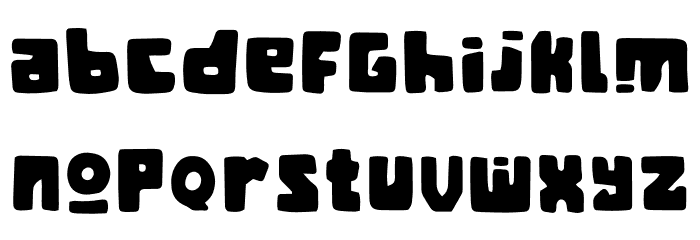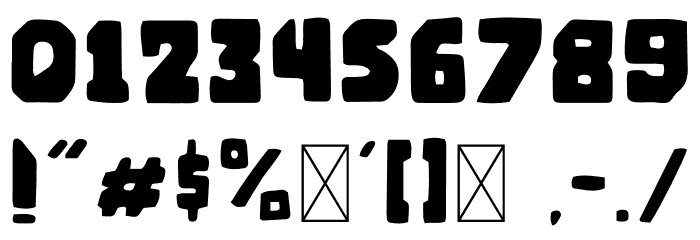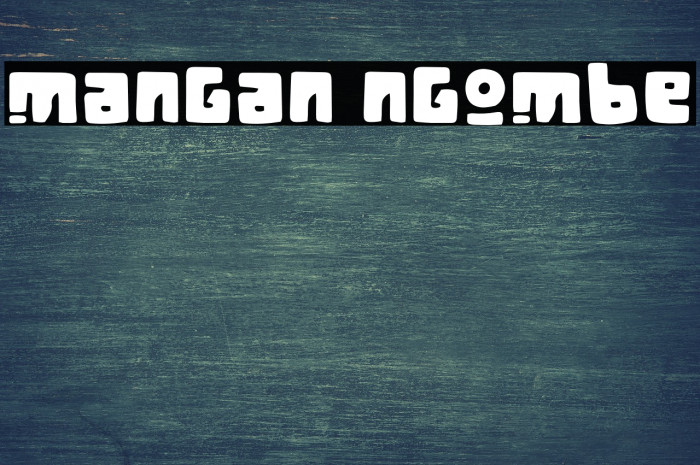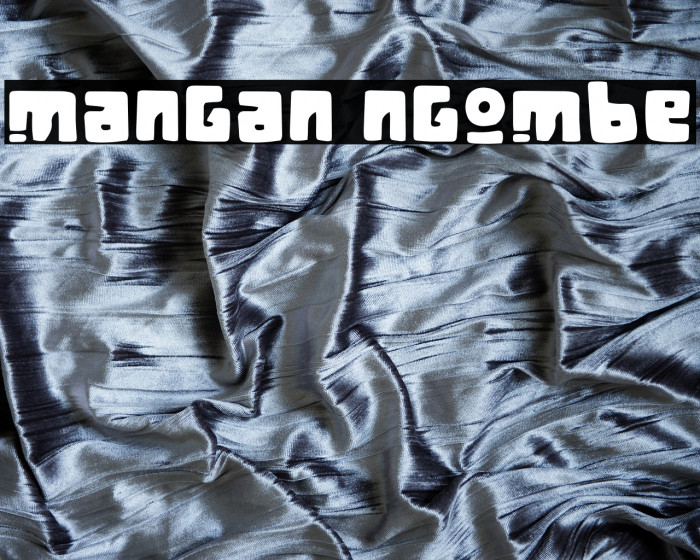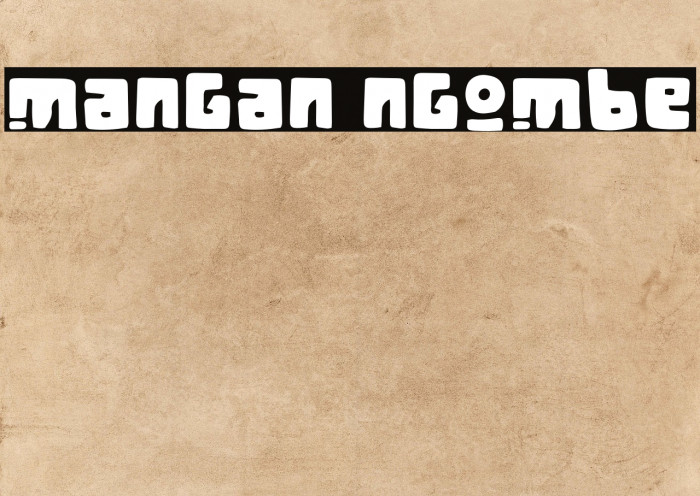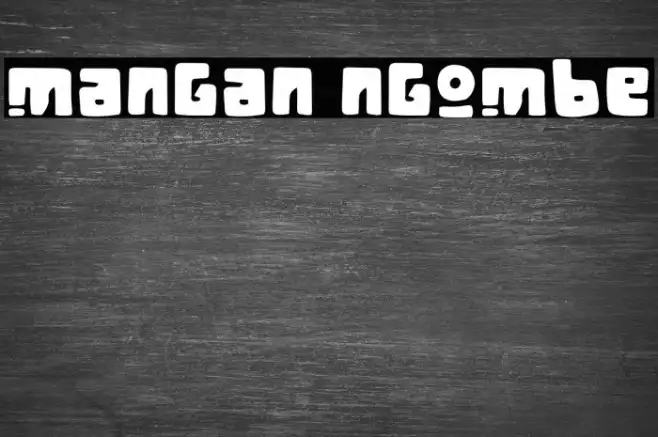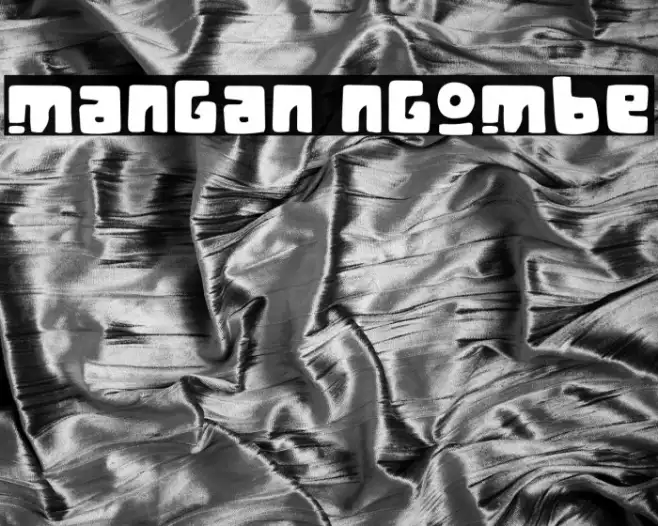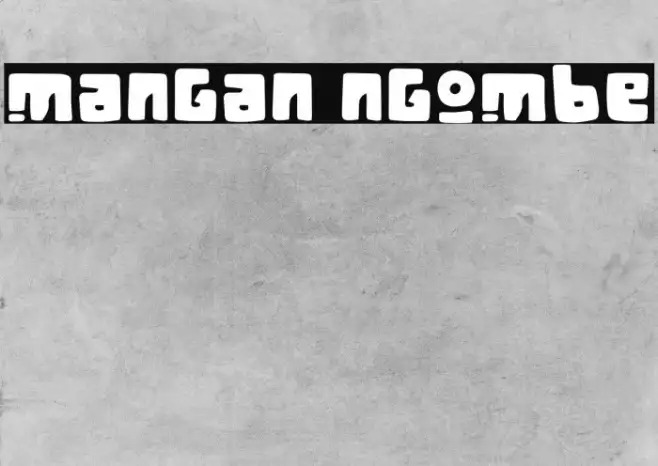
Mangan Ngombe Font
This font features a bold and playful design with a distinctly chunky and irregular form. The characters are rounded and have a hand-drawn appearance, giving them a whimsical and informal feel. The uppercase and lowercase letters maintain a consistent style, with exaggerated curves and varying stroke widths that add to the font's unique character. The numbers and special characters follow the same design principles, ensuring a cohesive look across all elements. This font's boldness and distinctive style make it stand out, making it ideal for projects that require a fun and engaging visual impact.
A bold, playful font with a chunky, hand-drawn style.
- Proposed Projects: Ideal for children's books, playful branding, posters, and creative projects that require a fun and engaging aesthetic.
- Overall Style: Playful, Whimsical